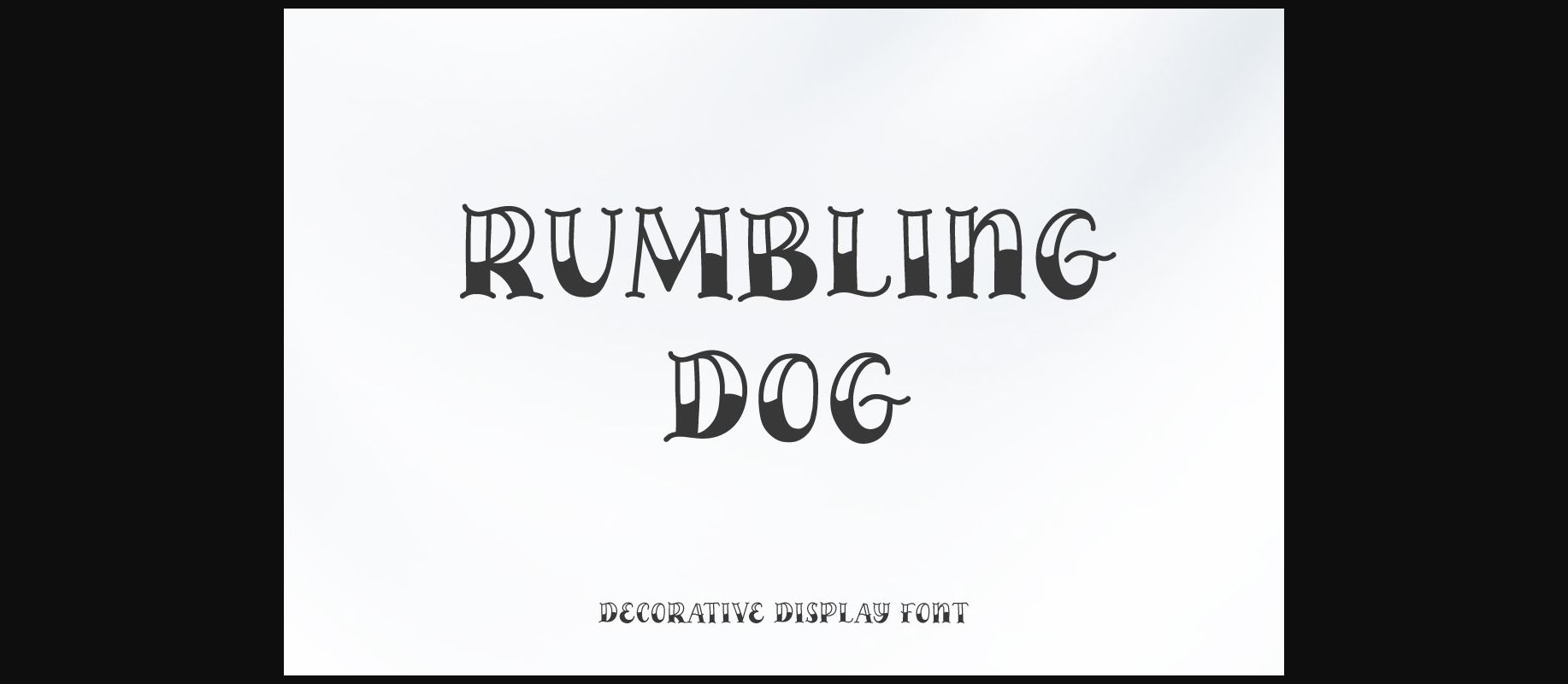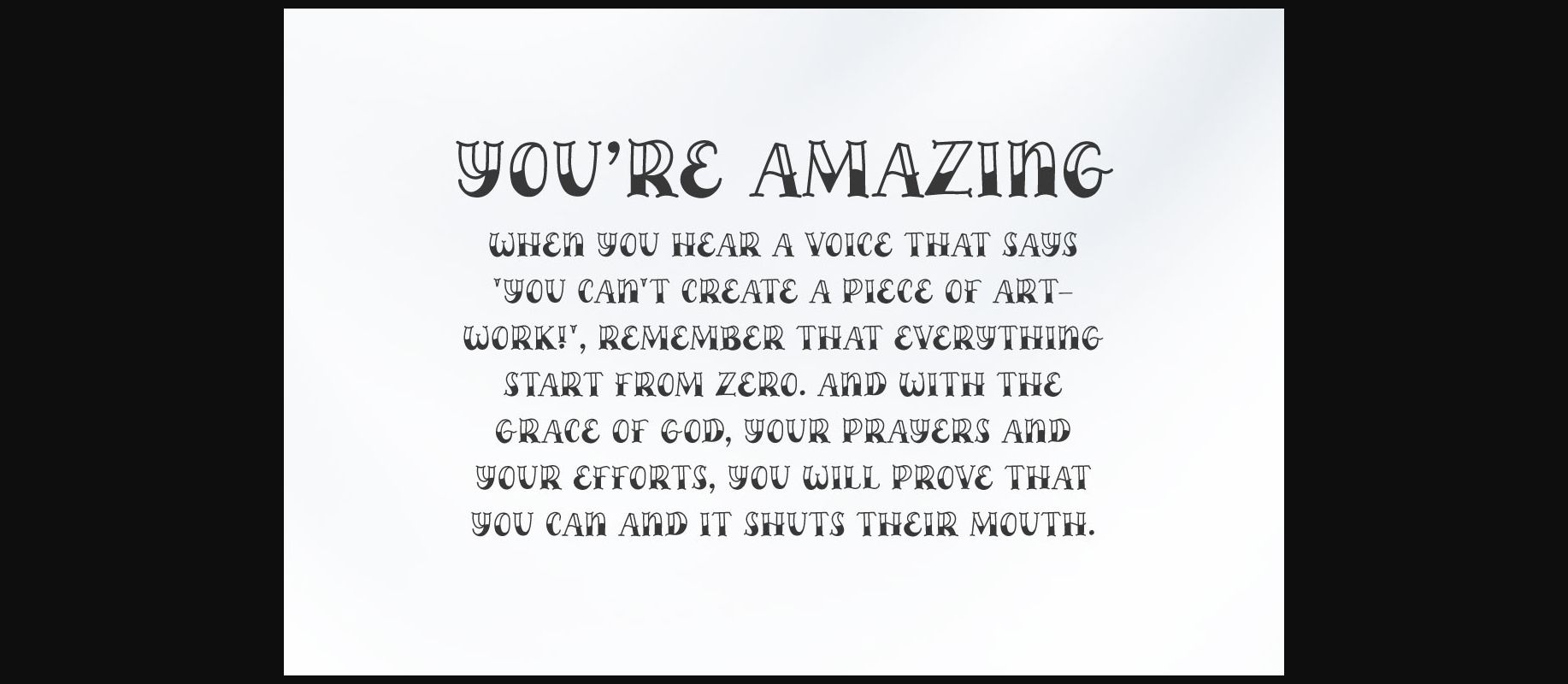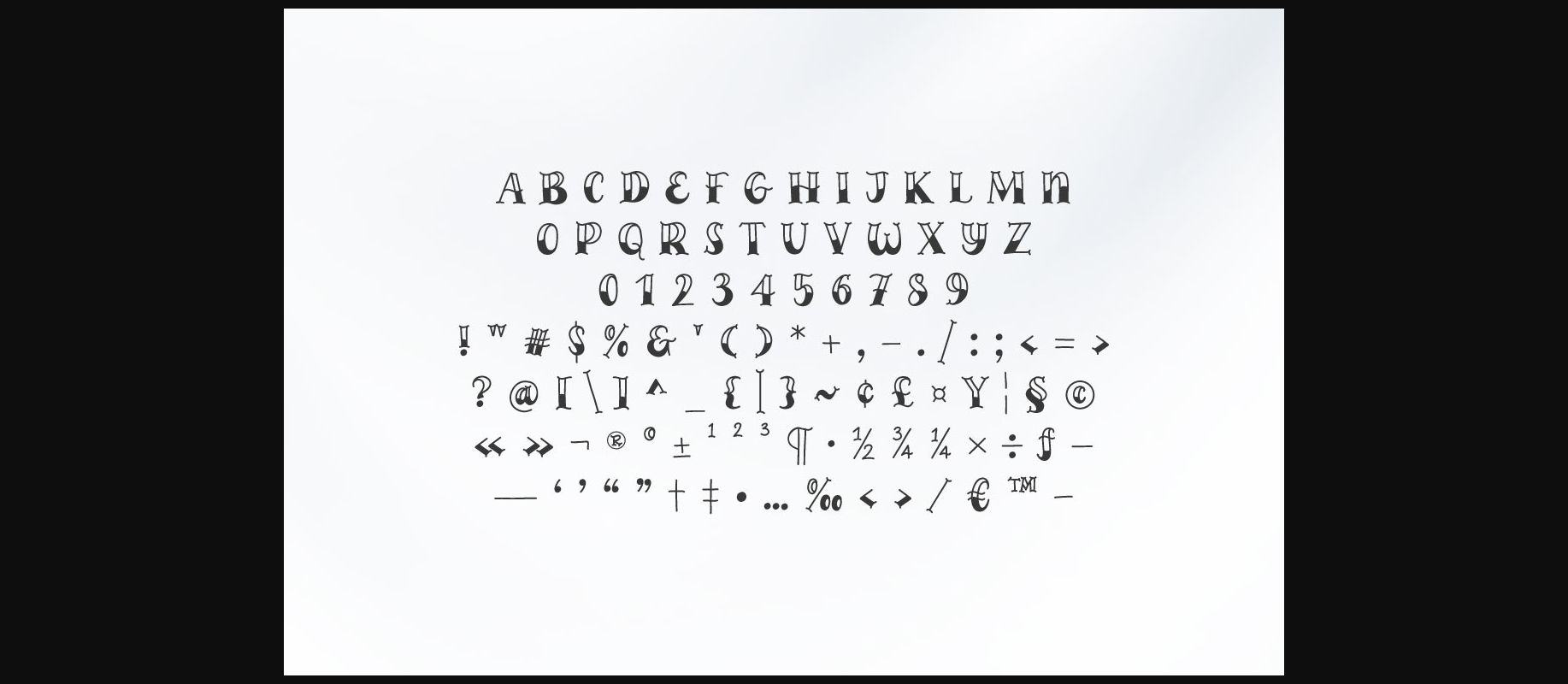
Rumbling Dog Font
About Rumbling Dog Font
Rumbling Dog is a delightful decorative font that is both playful and charming. With its whimsical design and cute lettering, each character is crafted to evoke a sense of warmth and sweetness. Perfect for greeting cards, children’s books, and posters, Sweetheart will add a touch of cuteness to any project.